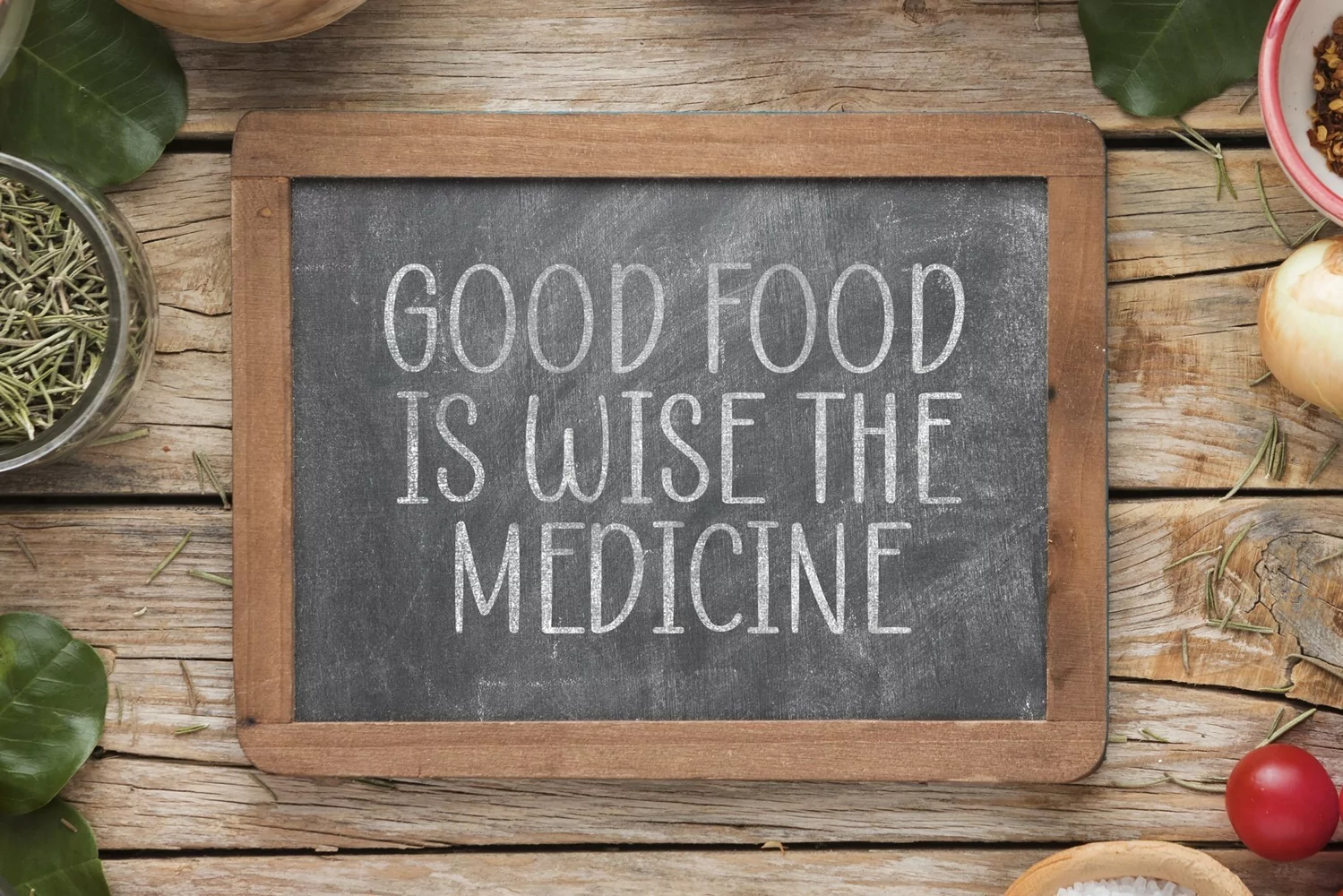
Fobulane is a Display Typeface Perfect for display, quotes, poster, merchandise, floral needs, crafting needs, business card, packaging, logo, logotype, header, branding tittle and many more.